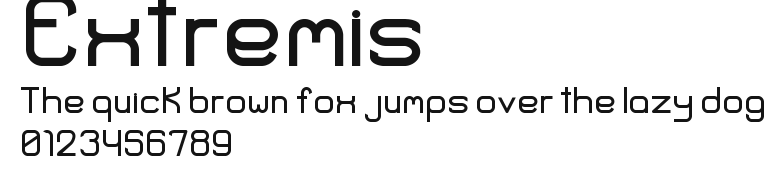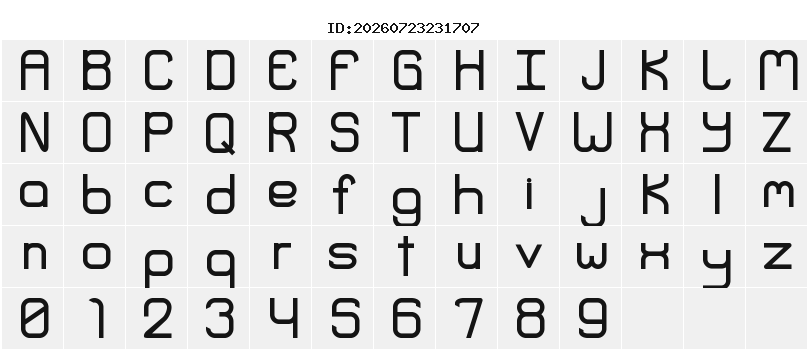
About Extremis.ttf
Extremis.ttf is a modern, elegant sans-serif font designed for ultimate readability and visual harmony. Perfect for branding, headlines, web design, and print materials.